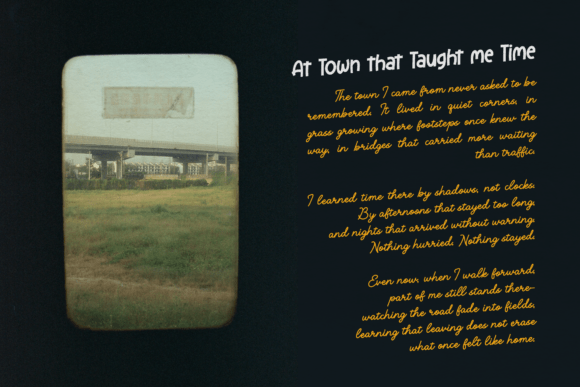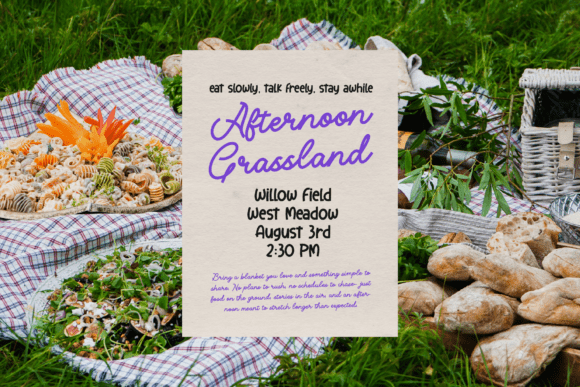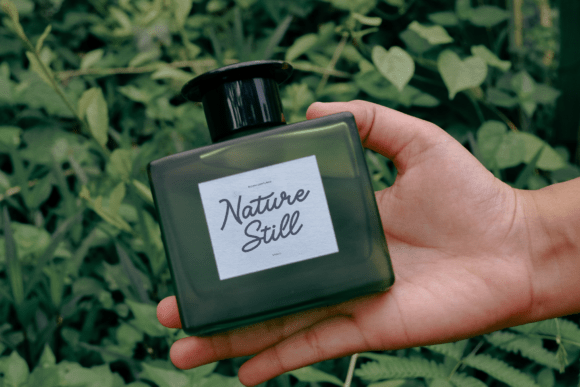
The Beauty of Averty Meadow: A Fresh Take on Monoline Script Fonts
I’ll never forget the moment I stumbled upon the perfect font for a garden-themed wedding invitation project. I had been scrolling through pages of Google search results, trying to find a monoline script that would evoke the natural beauty of a blooming field. That’s when I discovered Averty Meadow – a breath of fresh air in typographic form. In this article, I’ll share my experience with this gorgeous font, its features, and how to make the most of it in your designs.
My First Impressions: A Personal Review
As I explored Averty Meadow, I fell in love with its elegant loops and consistent line weight. Here are some things that I love about this font:
• ✨ Over 290 glyphs and multilingual support, providing incredible flexibility for global branding and sophisticated stationery.
• ✅ High legibility even at smaller sizes, making it perfect for body text and captions.
• ✅ PUA encoding included, making all special characters and decorative elements easily accessible without additional software.
• ✅ A beautiful, fluid script that pairs perfectly with high-resolution photography of nature or soft, earthy tones.
While Averty Meadow is a stunning font, there are a few small quirks to be aware of:
• ⚠️ Some users may find the font a bit too delicate for certain applications, such as bold headlines or titles.
• 🤔 The font’s OpenType features may require a bit of experimentation to get the hang of, especially for those new to using glyphs and stylistic alternates.
The Story Behind Averty Meadow
Averty Meadow was designed with the intention of capturing the natural beauty of a blooming field. The designer’s inspiration came from the rolling hills and lush greenery of the countryside, combined with a passion for elegant typography. The result is a font that exudes a sense of serenity and sophistication.
What is the best way to pair Averty Meadow with other design elements? Averty Meadow pairs beautifully with high-resolution photography of nature, soft earthy tones, and elegant graphics.
How do I access the glyphs and stylistic alternates in Averty Meadow? Glyphs and stylistic alternates can be accessed through the font’s OpenType features, which vary depending on the design software being used.
Is Averty Meadow suitable for body text? Yes, Averty Meadow is legible even at smaller sizes, making it suitable for body text and captions.